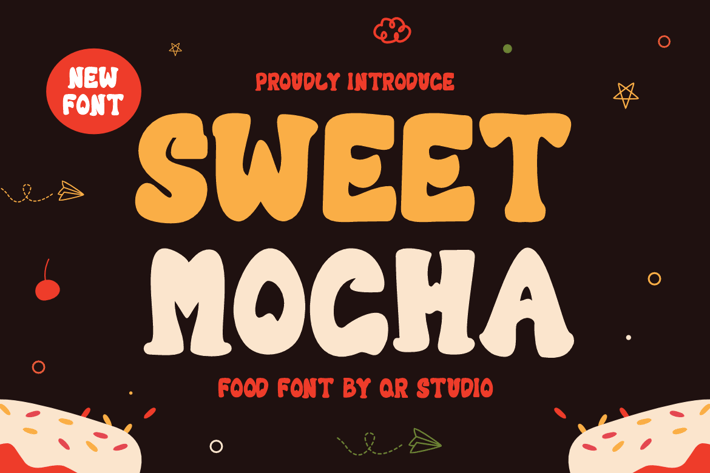
Sweet Mocha - Display Font
Sweet Mocha - Display Font is a bold and authentic display font.
The font is suitable for any branding project like food, kids, cute, poster, logo, sport, and many more.